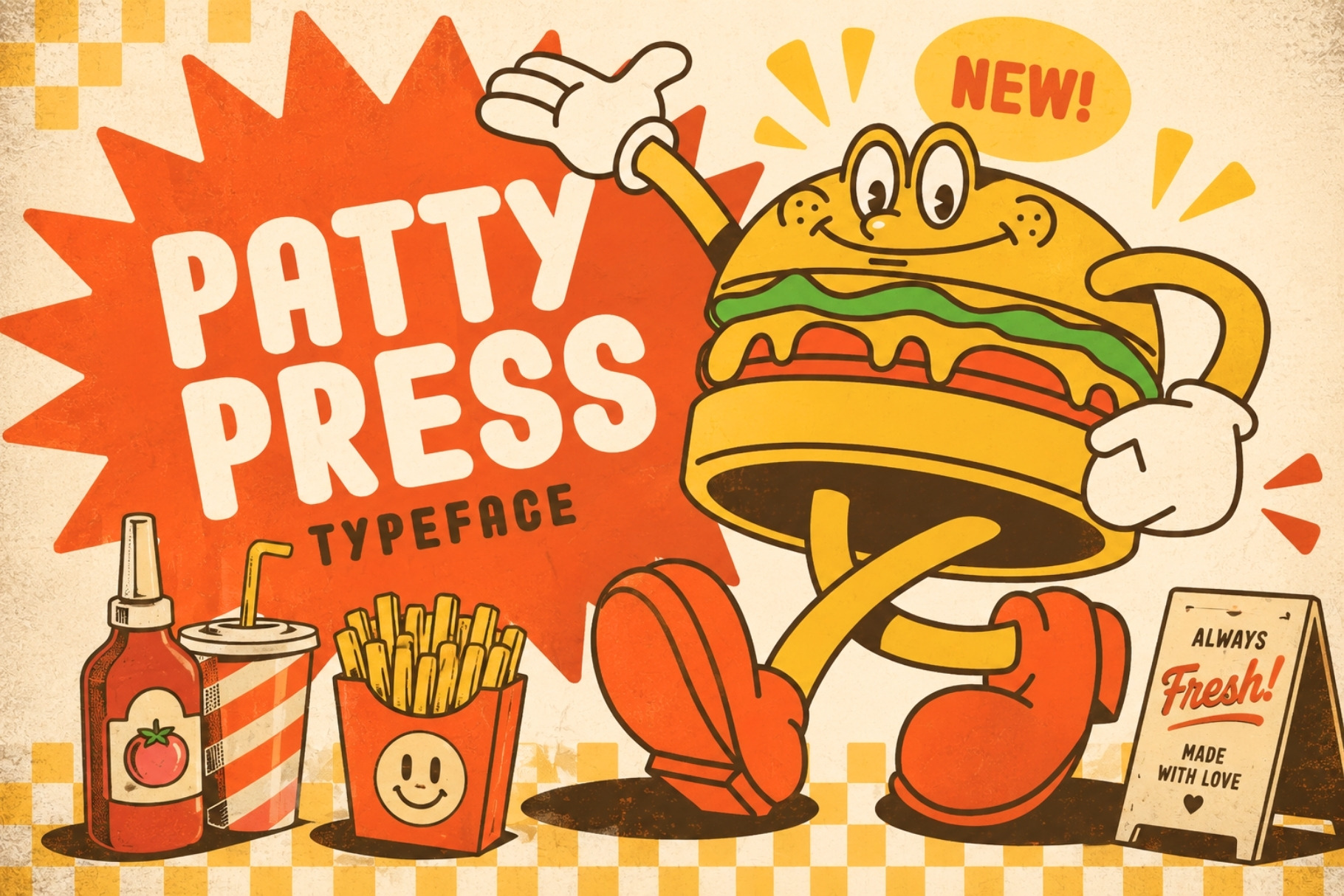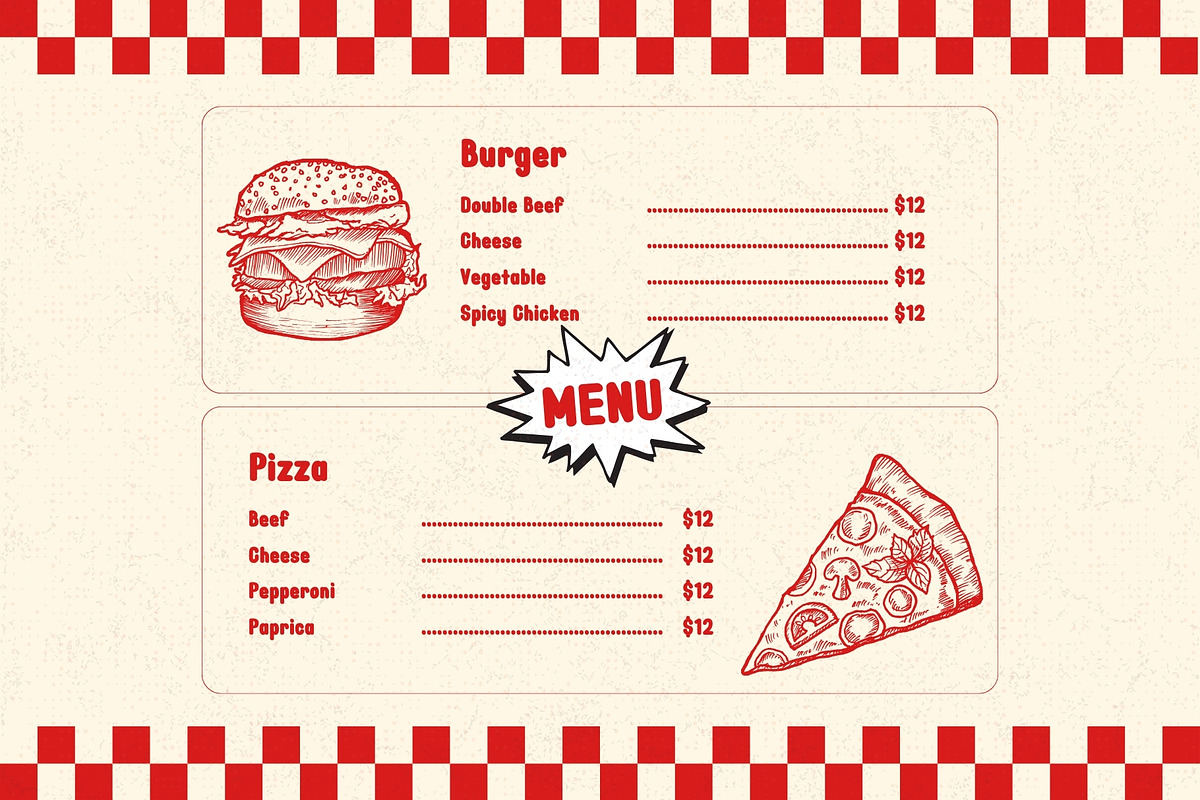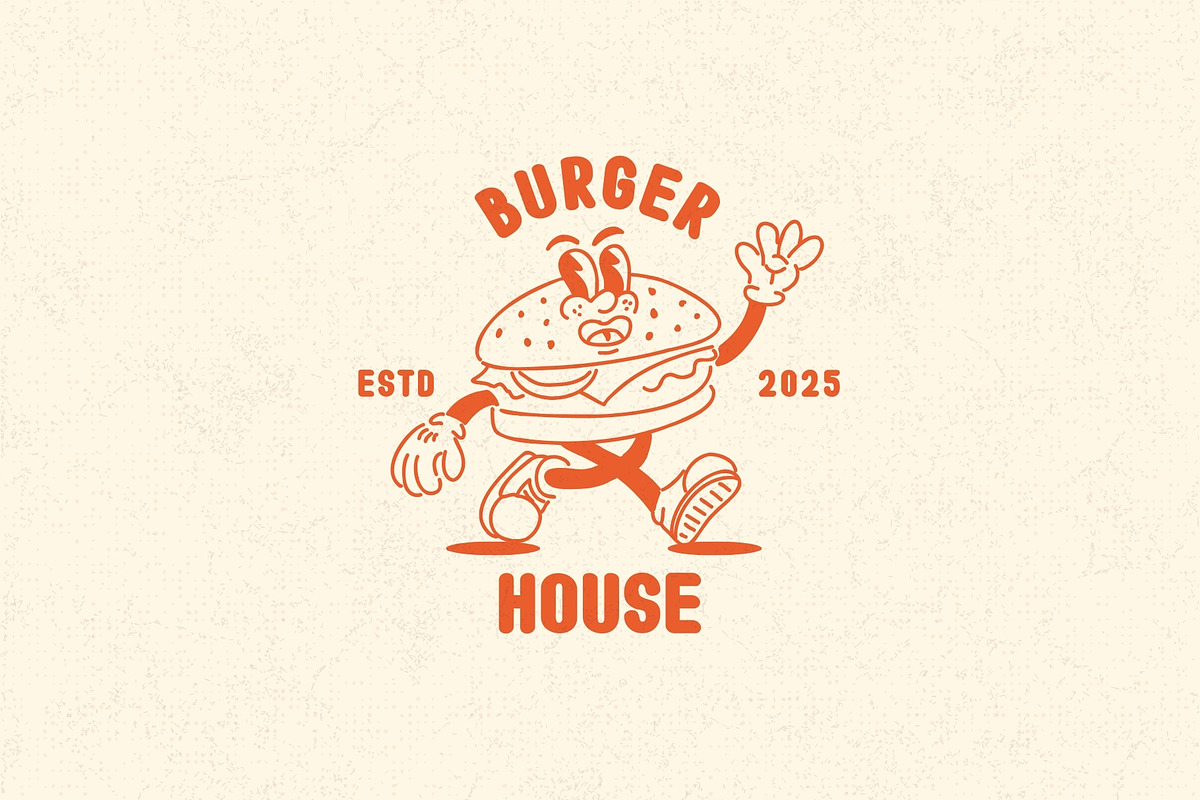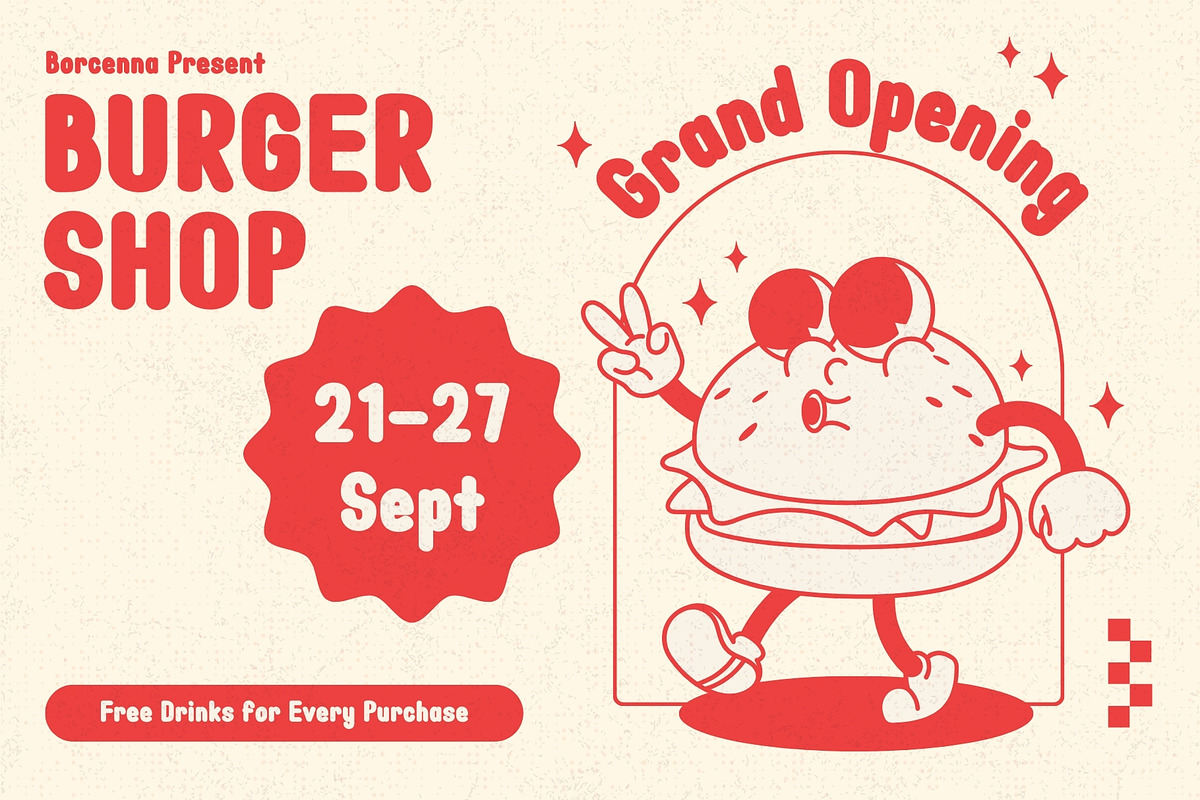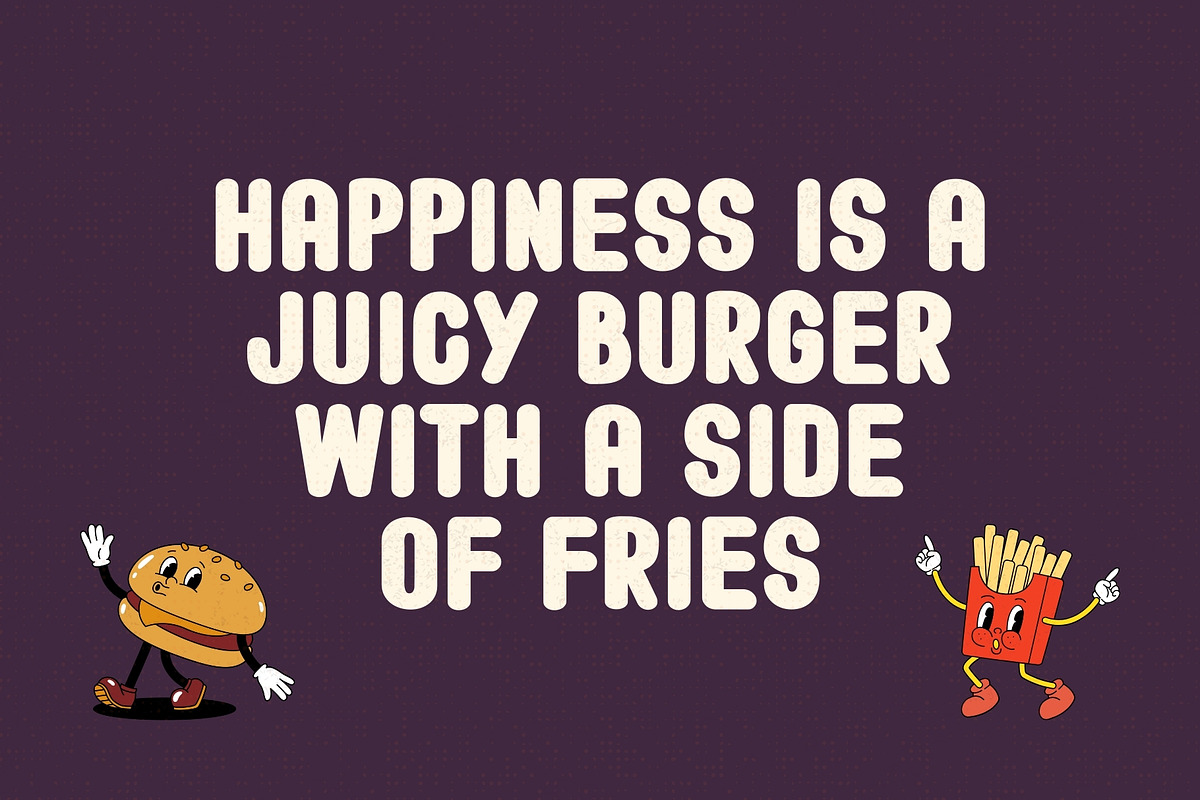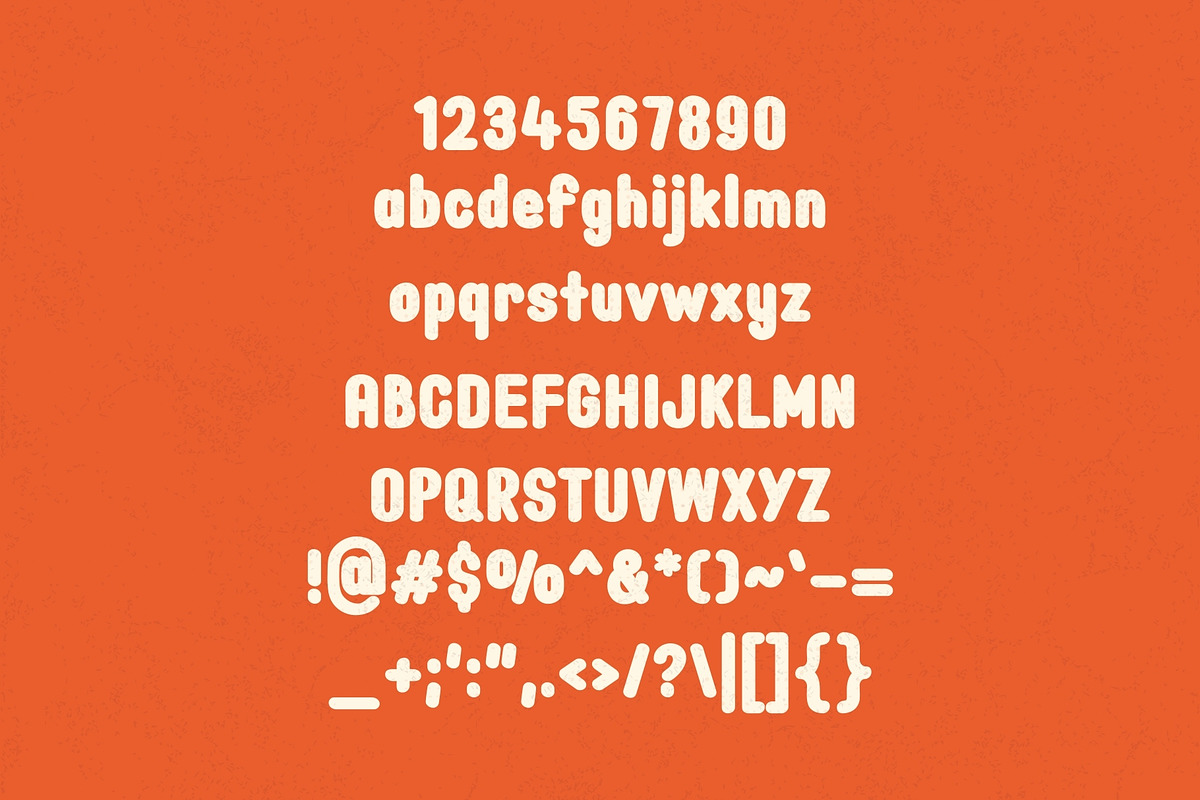
Patty Press - Friendly Typeface
Introducing Patty Press, a warm and welcoming rounded sans typeface designed to bring joy and personality to your brand. With its soft, playful curves and inviting letterforms, Patty Press is perfect for restaurants, cafés, food trucks, and family-friendly brands looking to create a fun and engaging experience.
Whether you're designing a deliciously bold menu, a mouthwatering logo, or playful packaging, this typeface serves up the perfect mix of charm and readability. Its rounded edges and friendly aesthetic make it ideal for kids' menus, casual dining spots, and brands that want to feel approachable and fun.
Playful, rounded sans-serif design
Perfect for restaurant menus, branding, and food packaging
Fun and inviting for kids and family-oriented businesses
Highly legible and versatile for both digital and print use
Adds a friendly, cheerful touch to any design
Give your brand a deliciously fun makeover with Patty Press—because great design should be just as enjoyable as a good meal! 🍔✨